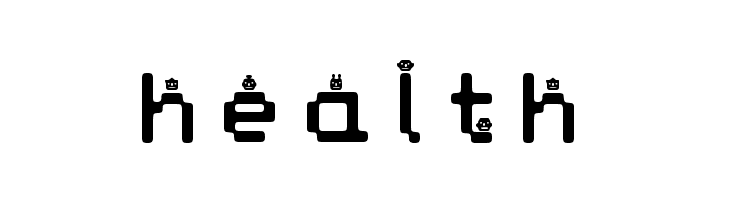
DustHome Medium Font
A bold, grid-like pattern with vertical lines, ideal for modern designs.
DustDot Font
A pixelated, blocky font with a retro digital aesthetic.
DustDemon Bold Font
A bold, playful font with cat-like features integrated into each character.
DustDotman Bold Font
A bold, dot matrix style font with a retro digital feel.
DustHomeMan Medium Font
A minimalist grid of vertical lines with a modern, structured appearance.
DustMonsters Medium Font
A playful, monster-themed decorative font with bold, geometric characters.